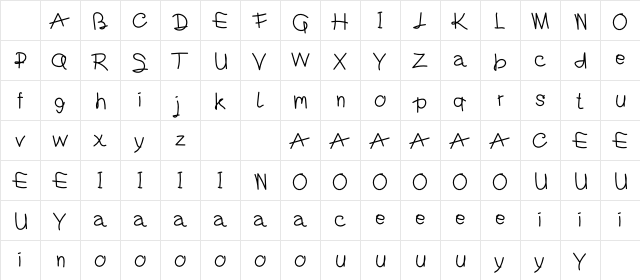
Parasit is a composed and adaptable typeface that performs quietly and consistently across a wide range of design contexts.
Pro Tip: Use Parasit in both headline and body roles to test its range before committing to a single application.